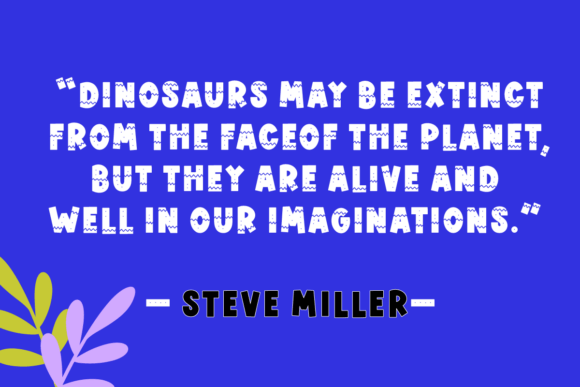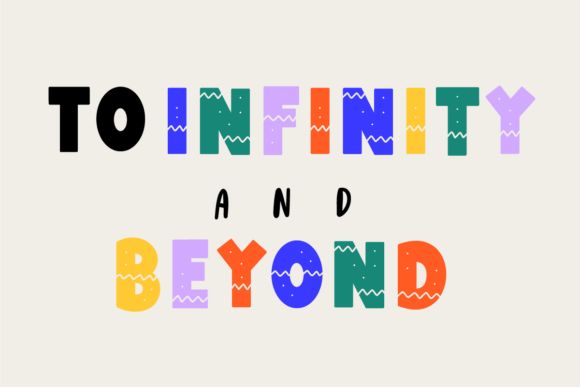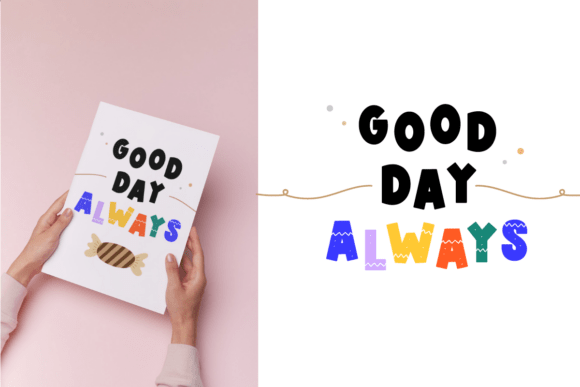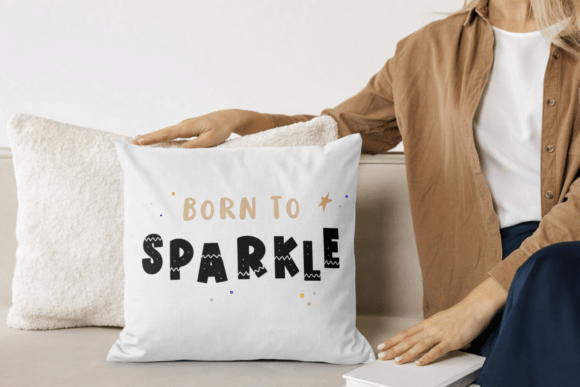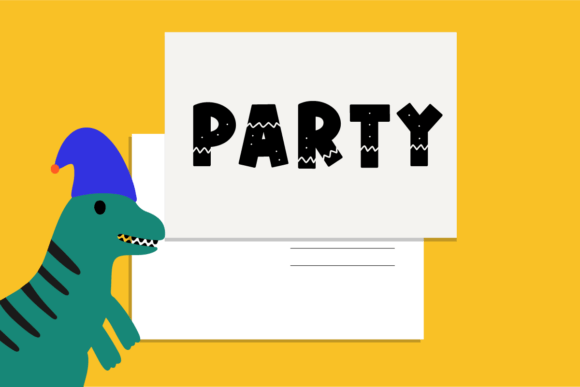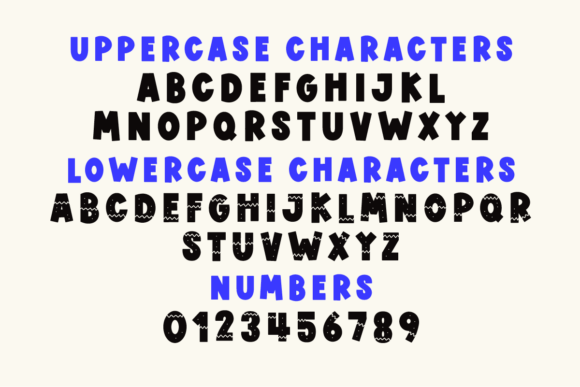
Unleash the Fun with Dino Roar Font: A Playful Decorative Display Font
Are you looking for a font that adds a dash of fun and personality to your designs? Look no further than the Dino Roar Font! This playful decorative display font is perfect for designers and crafters who want to bring a lively, textured look to their projects. Inspired by the charm of dinosaurs and childhood wonder, Dino Roar features bold, chunky letterforms with quirky cut-out patterns that are sure to make your designs roar with personality.
What Makes Dino Roar Font So Special?
Dino Roar Font is more than just a font – it’s an experience. With its bold, chunky letterforms and quirky cut-out patterns, it’s perfect for creating eye-catching designs that are sure to delight. Whether you’re working on a children’s book, party invitation, educational material, poster, or playful branding project, Dino Roar Font is the perfect choice.
One of the standout features of Dino Roar Font is its perfect balance of readability and creativity. The font is designed to be easy to read, making it perfect for use in children’s books and educational materials. At the same time, its bold and playful design makes it perfect for use in posters, party invitations, and other eye-catching applications.
Key Features of Dino Roar Font
- Bold, chunky letterforms: Dino Roar Font features bold, chunky letterforms that are perfect for creating eye-catching designs.
- Quirky cut-out patterns: The font’s quirky cut-out patterns add a lively, textured look to every design.
- Multilingual support: Dino Roar Font supports multiple languages, making it perfect for use in a variety of contexts.
- Versatile uppercase and lowercase characters: The font features versatile uppercase and lowercase characters, giving you the flexibility to create a wide range of designs.
Dino Roar Font is perfect for designers and crafters who want to add a dash of fun and personality to their projects. Whether you’re creating a children’s book, party invitation, educational material, poster, or playful branding project, this font is sure to make your designs stand out.
With Dino Roar Font, you can:
- Create eye-catching children’s books that will delight kids and parents alike.
- Design party invitations that are sure to get your guests excited.
- Develop educational materials that are both fun and engaging.
- Create posters that will grab attention and make a lasting impression.
- Build playful branding projects that will help your business stand out.
Dino Roar Font is a playful decorative display font that’s perfect for designers and crafters who want to add a dash of fun and personality to their projects. With its bold, chunky letterforms and quirky cut-out patterns, this font is sure to make your designs roar with personality. Whether you’re working on a children’s book, party invitation, educational material, poster, or playful branding project, Dino Roar Font is the perfect choice. So why wait? Download Dino Roar Font today and start creating eye-catching designs that will delight and inspire!